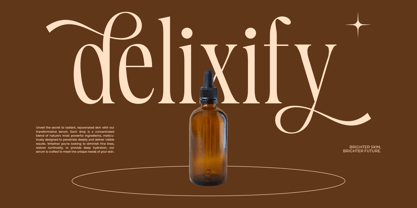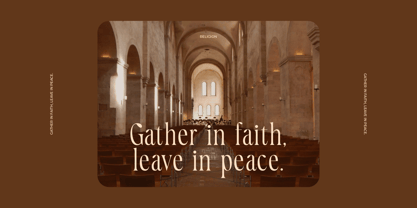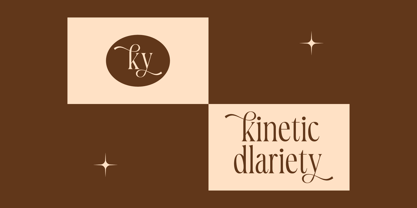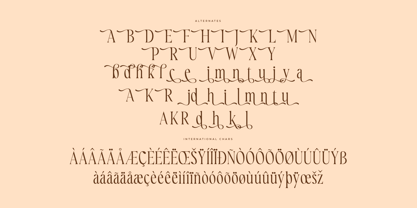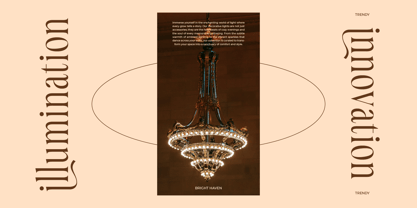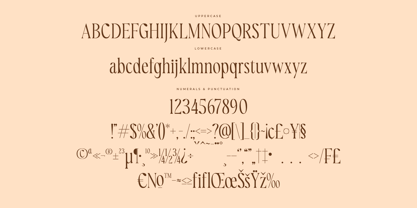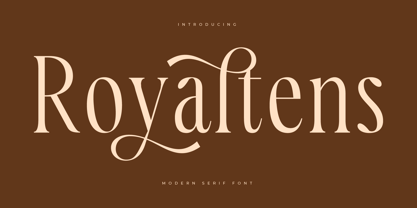
Royaltens
par Letterena Studios
La famille de polices Royaltens a été conçue par Heru Utama Putra et publiée par Letterena Studios. Royaltens contient 2 styles et options de package familial.
Royaltens is a modern and stylish serif font that combines sophistication with contemporary flair. Its clean lines and balanced proportions make it perfect for editorial designs, branding, and logos. With its versatility and timeless appeal, Royaltens elevates any project with elegance and professionalism.